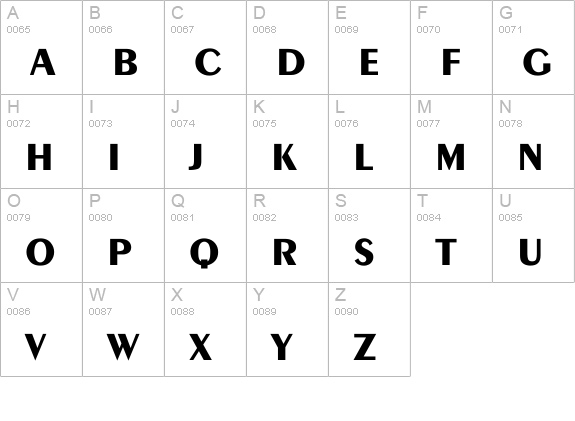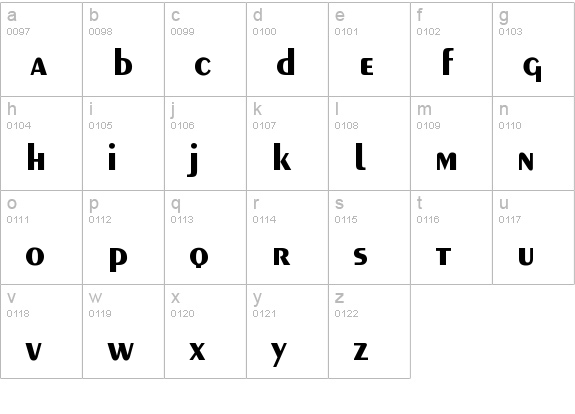
Exotic-Bold is a strong, high-contrast variant in the Exotic typeface family \xE2\x80\x94 well suited to headlines, attention-grabbing titles, and strong calls-to-action.
Introducing Exotic-Bold font, a striking and unique typeface that effortlessly captures attention with its bold and exotic appeal. This font is perfect for making a statement in design projects that require a touch of sophistication and flair. The Exotic-Bold font features elegant lines and distinct characters that exude a sense of luxury and creativity. What sets Exotic-Bold font apart is its seamless blend of modernity and exotic charm, making it a versatile choice for a wide range of design applications. Whether you're working on branding materials, advertising campaigns, or personal projects, this font is sure to make a lasting impression. Best of all, Exotic-Bold font is available for free download at FontsMarket.com, allowing you to easily incorporate this stunning typeface into your projects without any hassle. Elevate your designs with the captivating beauty of Exotic-Bold font and let your creativity shine.